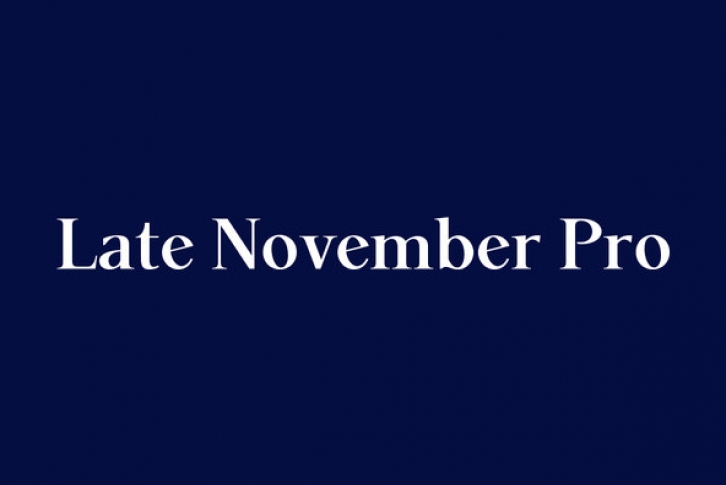
Late November is a transitional Antiqua-inspired type design. From the designer: "I started working with the design one dark, late November night, two years ago. After two years of work, I felt I had to draw the line and consider it finished."
Designed by Torleiv Sverdrup.